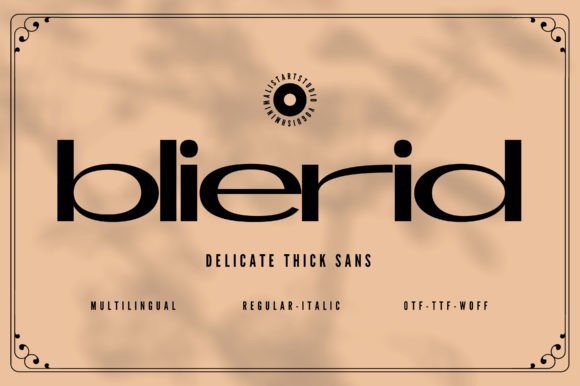
Prepare yourself for a typographic masterpiece that exudes sophistication and elevates your designs to unparalleled levels of elegance: Blierid Font. This exquisite sans serif font crafted by Minimalistartstudio is not just a collection of letters, it's an ode to luxury and high fashion. Each character is meticulously designed to exude an air of refinement, making it the ideal choice for fashion magazines, luxury brands, and bespoke product packaging.
With Blierid Font, you'll captivate your audience with its sleek lines, smooth curves, and modern yet timeless appeal. Its clean aesthetic adds a touch of sophistication to any project, leaving an unforgettable impression on every beholder. Dive into the world of luxury typography with Blierid Font and watch as your designs transform into masterpieces of elegance and refinement.